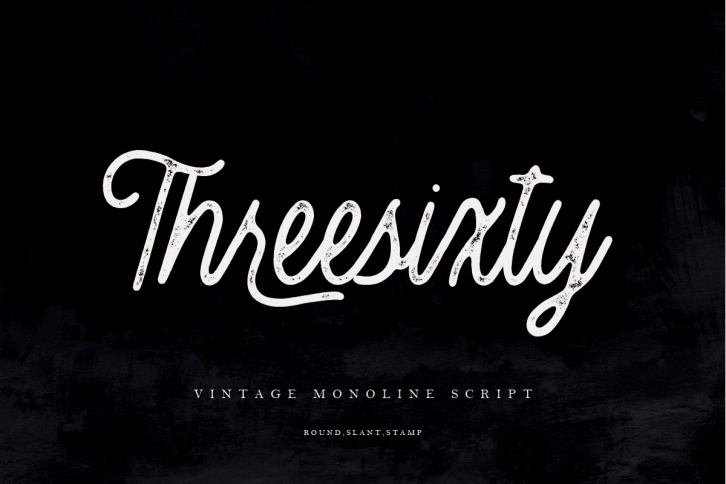
30OFF is a gorgeous font that was realeased on July 16, 2019. The font can be used in many style contexts and design environments. Perfect for invitations, magazines, websites, logos, and more! It was designed by Megi satyo widodo and the file size is 19.73 MB. Thanks for checking out this font!